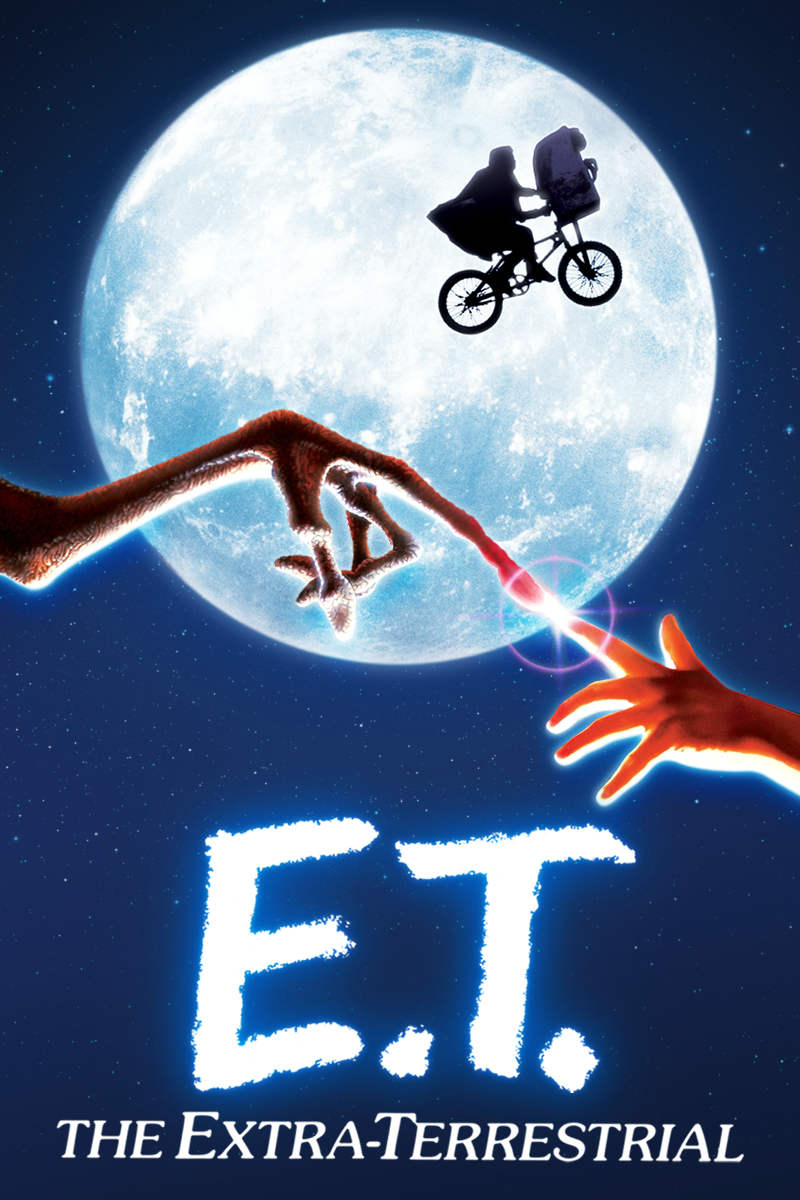
E.T. the Extra-Terrestrial Font
Fonts in UseE.T. the Extra-Terrestrial is a 1982 American science fiction film directed by Steven Spielberg, about a young boy who befriends a stranded alien and helps him return to his home planet. The film was a critical and commercial success and has since become a cultural icon.
The film title on the poster uses the ITC Souvenir Medium Italic font for the "the Extra-Terrestrial" part, while the "E.T." part is most likely a custom design and not a standard font. Similar fonts that resemble the "E.T." lettering include Clementine and Brushy Cre and both are available for free download in the Fonts Used Section.